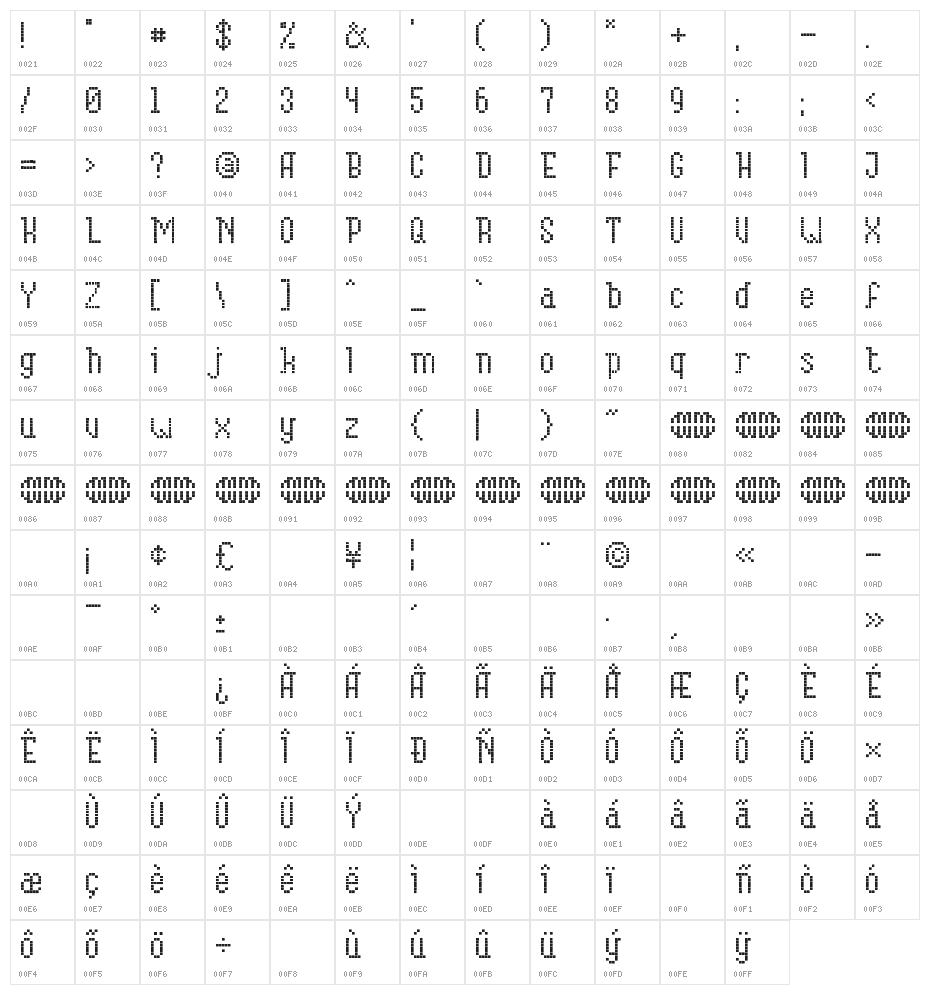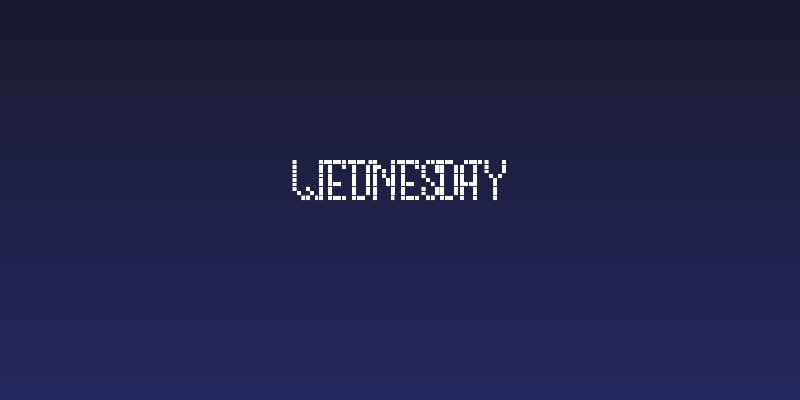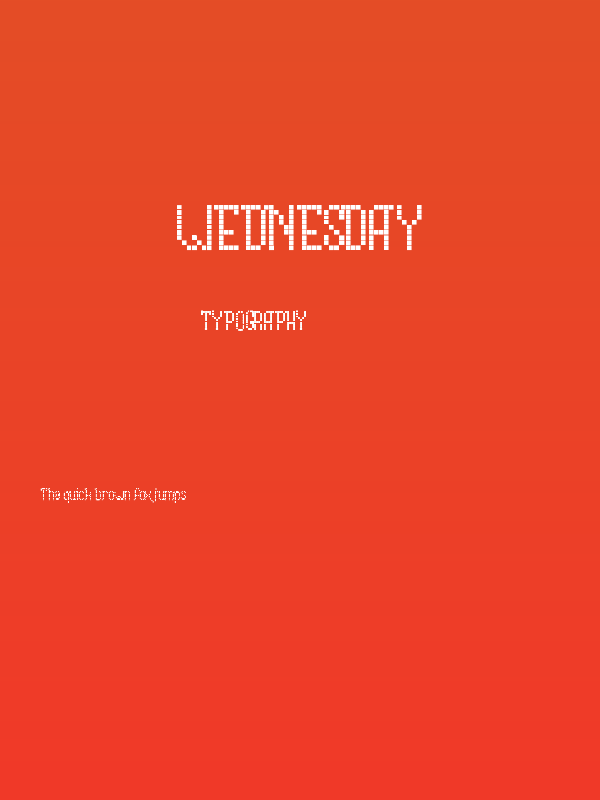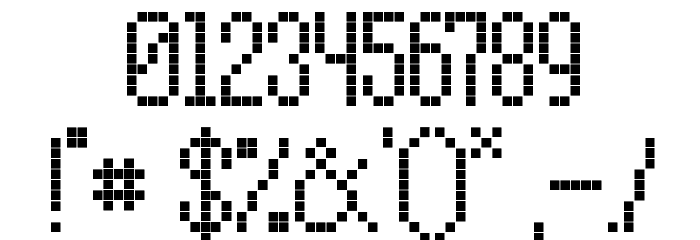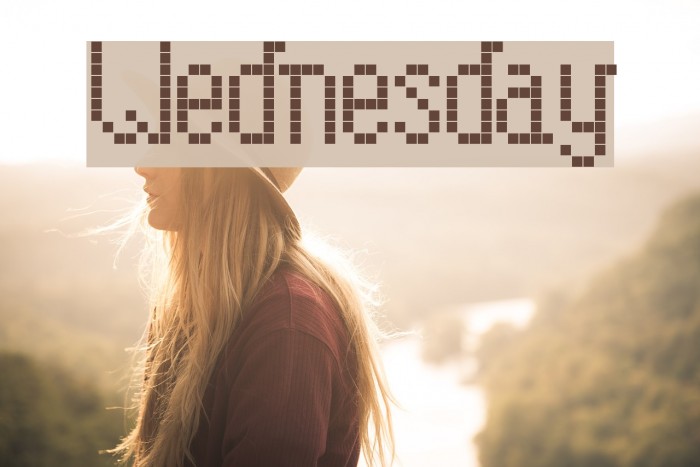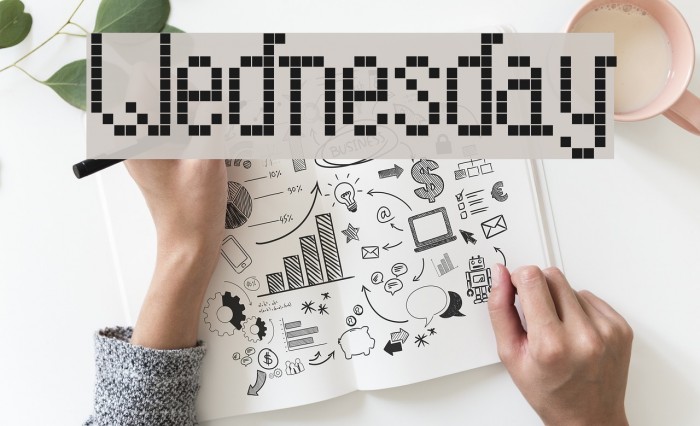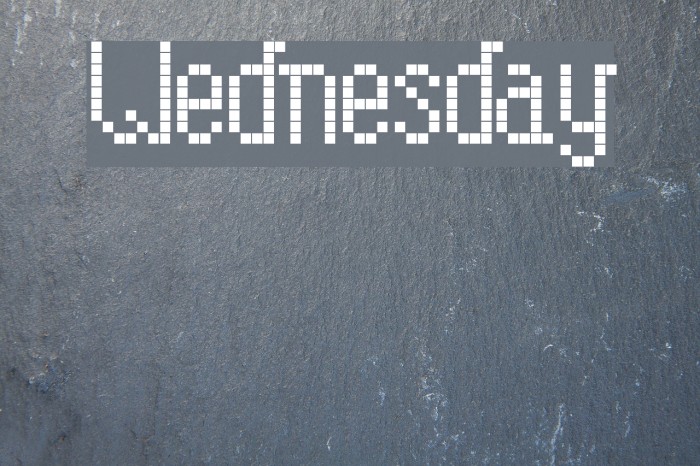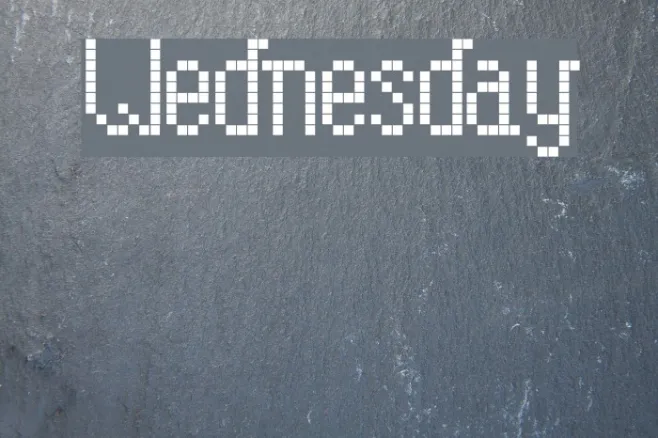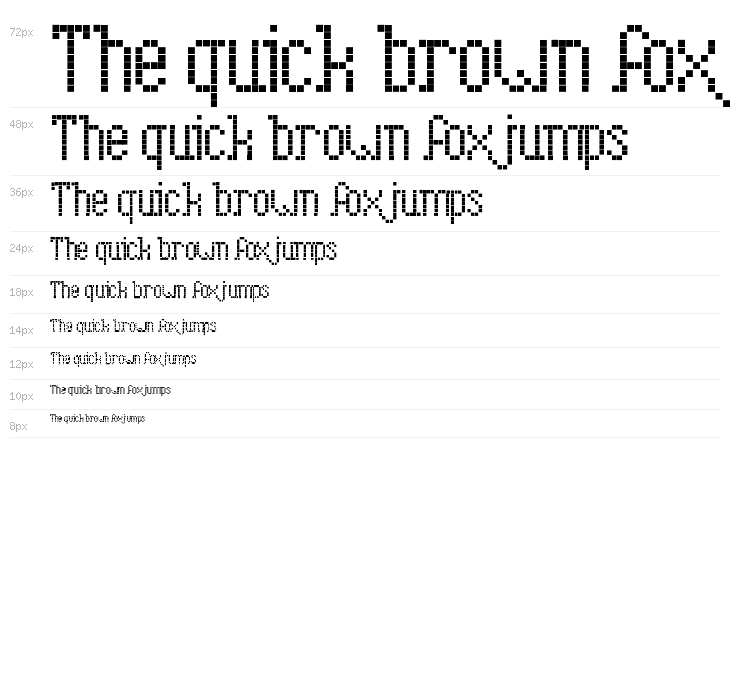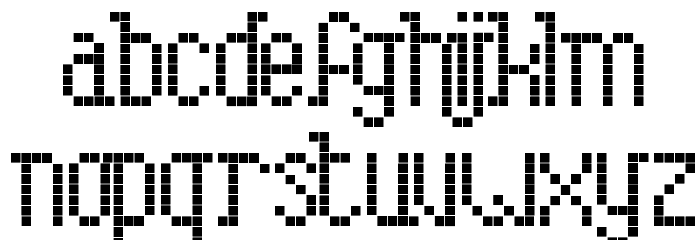
Wednesday Font
Wednesday Description
This font is a pixelated, grid-based design that evokes a retro, digital aesthetic reminiscent of early computer displays and video games. Each character is constructed from a series of small, uniform squares, giving it a distinctly blocky and geometric appearance. The uppercase and lowercase letters maintain a consistent height, with the lowercase letters slightly smaller in size. Numbers and special characters follow the same pixelated style, ensuring uniformity across all glyphs. The font's rigid structure and uniformity make it ideal for projects that require a digital or nostalgic feel.
| Use Case | Logos, Headlines, Digital displays |
| Proposed Projects | Ideal for retro video games, digital art projects, tech-themed designs, and any project requiring a nostalgic digital look. |